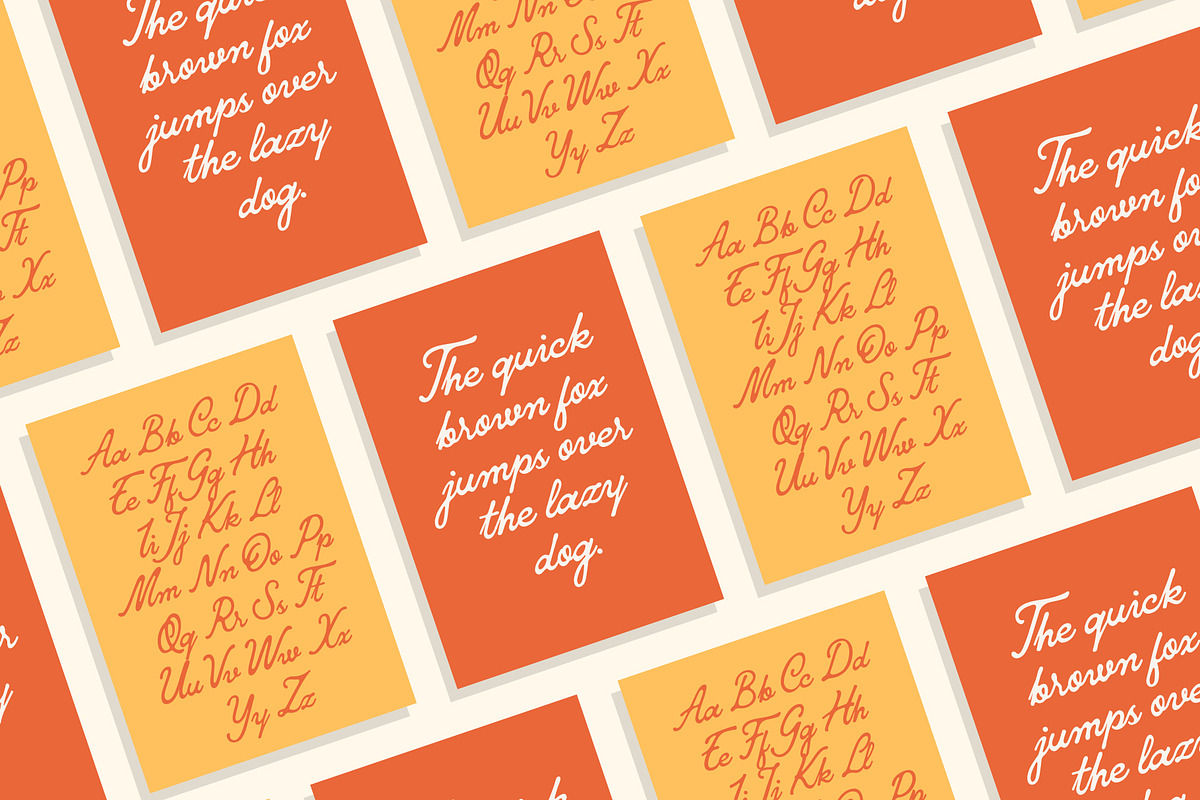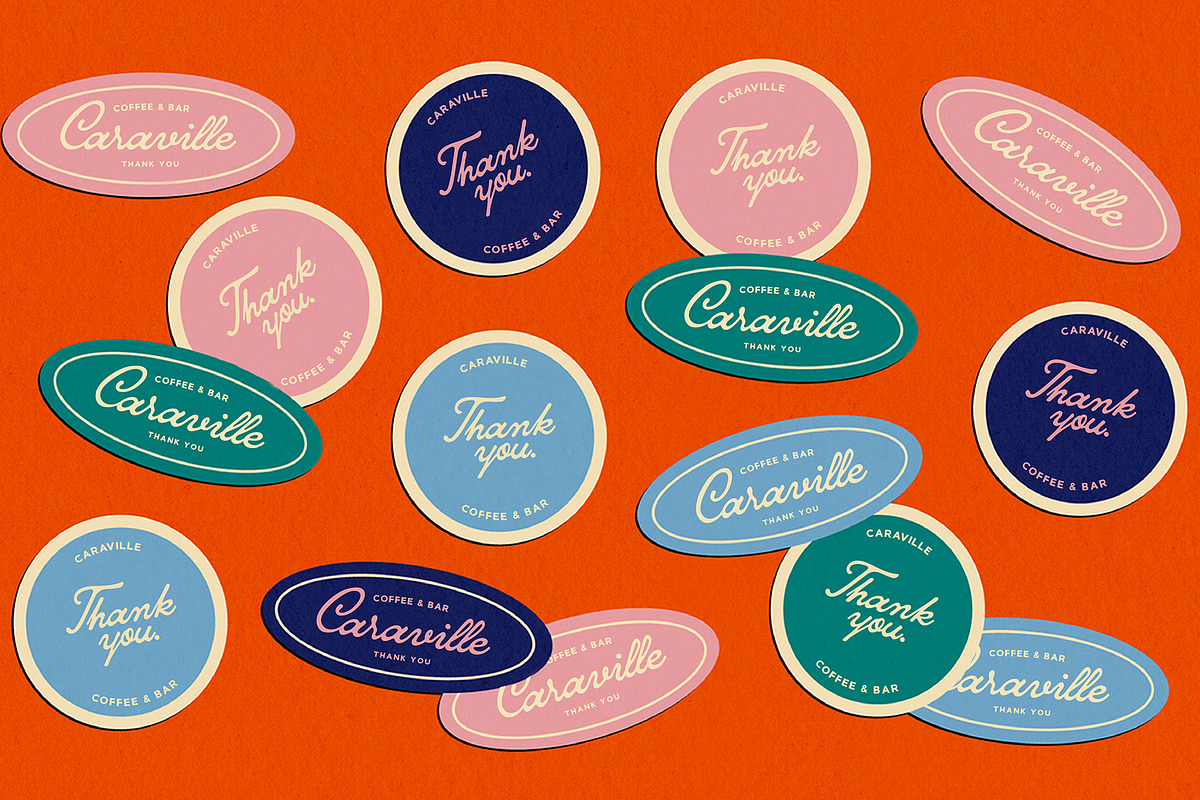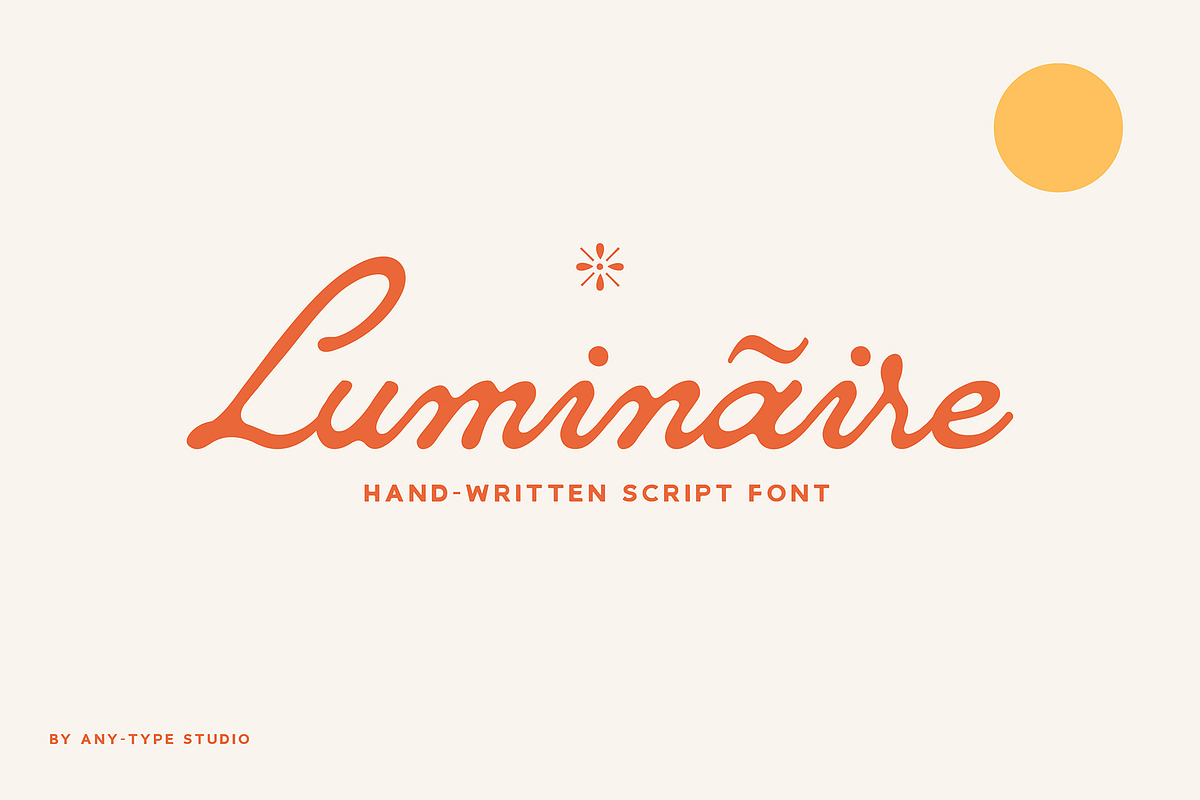
Luminaire Script
Luminaire Script is a casual script font inspired by hand written, pop cultures and urban culture. This font is great for your next creative project such as Logotype, printed quotes, invitations, cards, product packaging, headers, Letterhead, Poster, Apparel Design, Label, and etc.
Amazing font, love that your font has the umlaut characters like ö,ü and ä. The font is very versatile and unique and very legible for the handwriting style. SO COOOL, thank you.
This font is gorgeous! Took a long time to find a cursive font that was modern yet had a vintage feel–this was it. So glad I found it.
Good looking font, but there's no ligatures or contextual alternates. Wish it was more feature-rich.